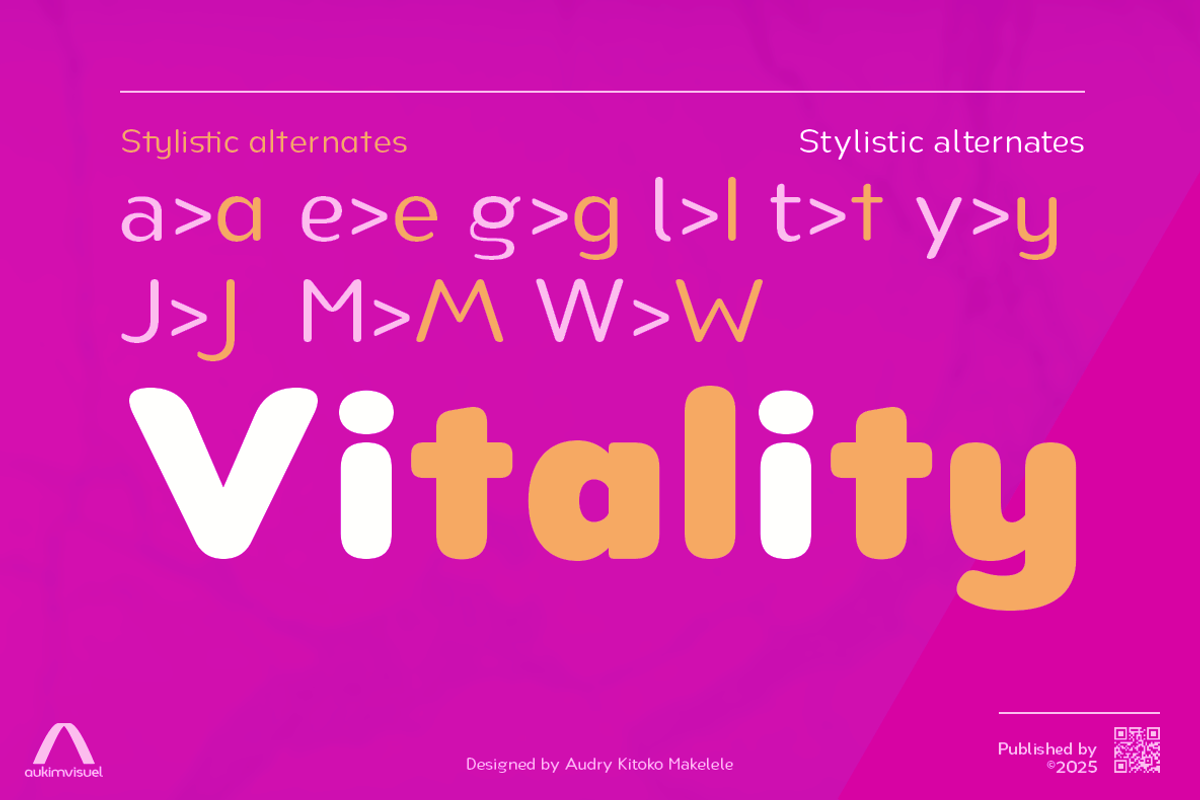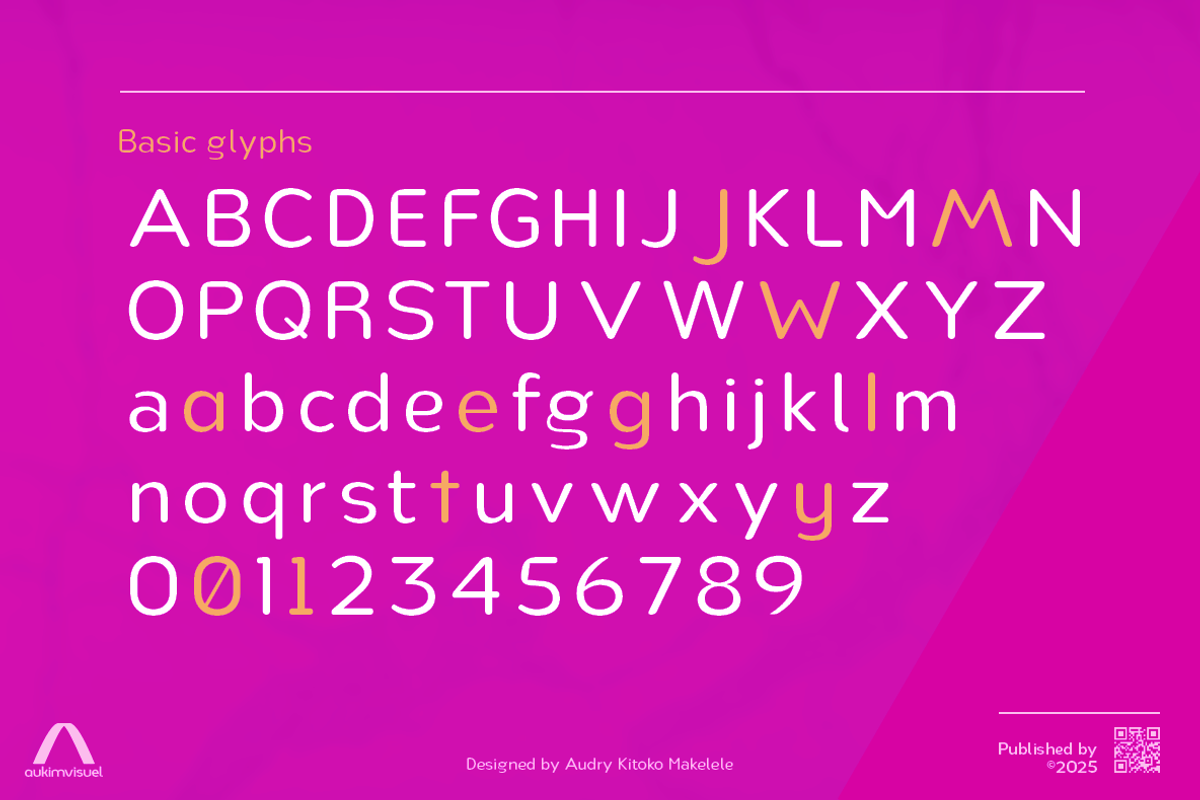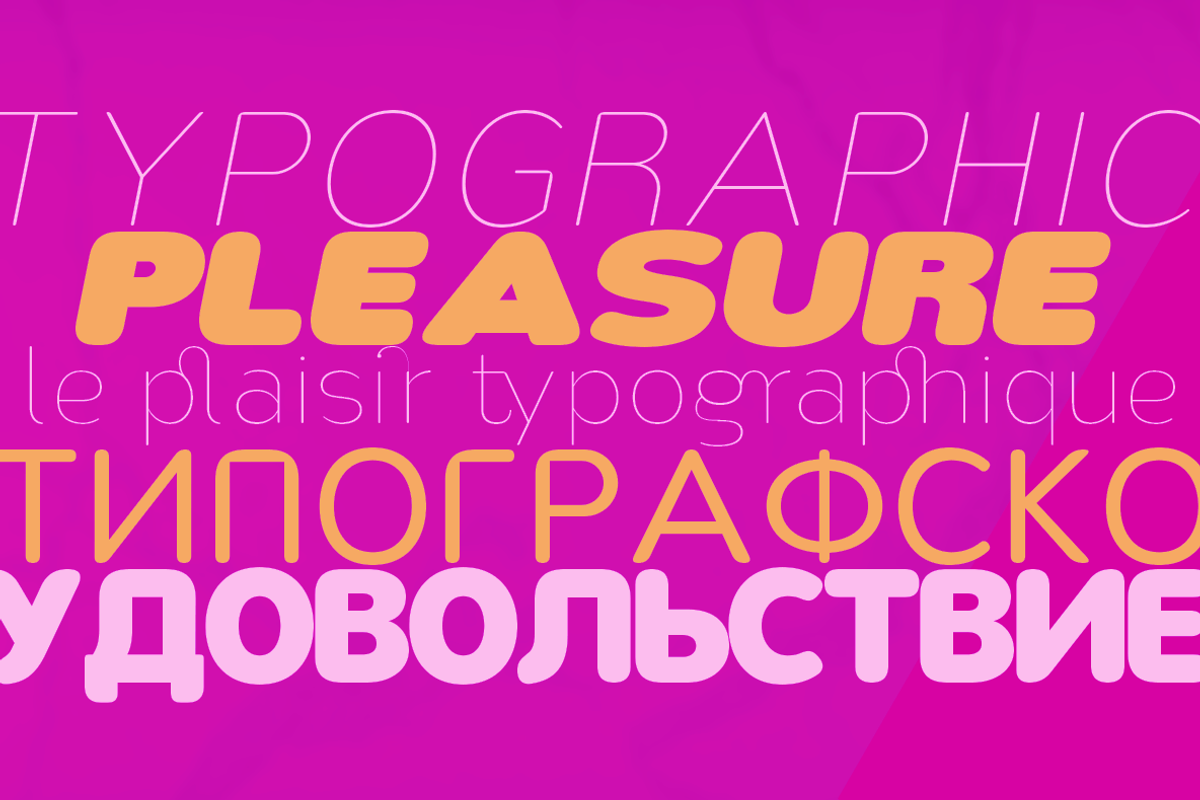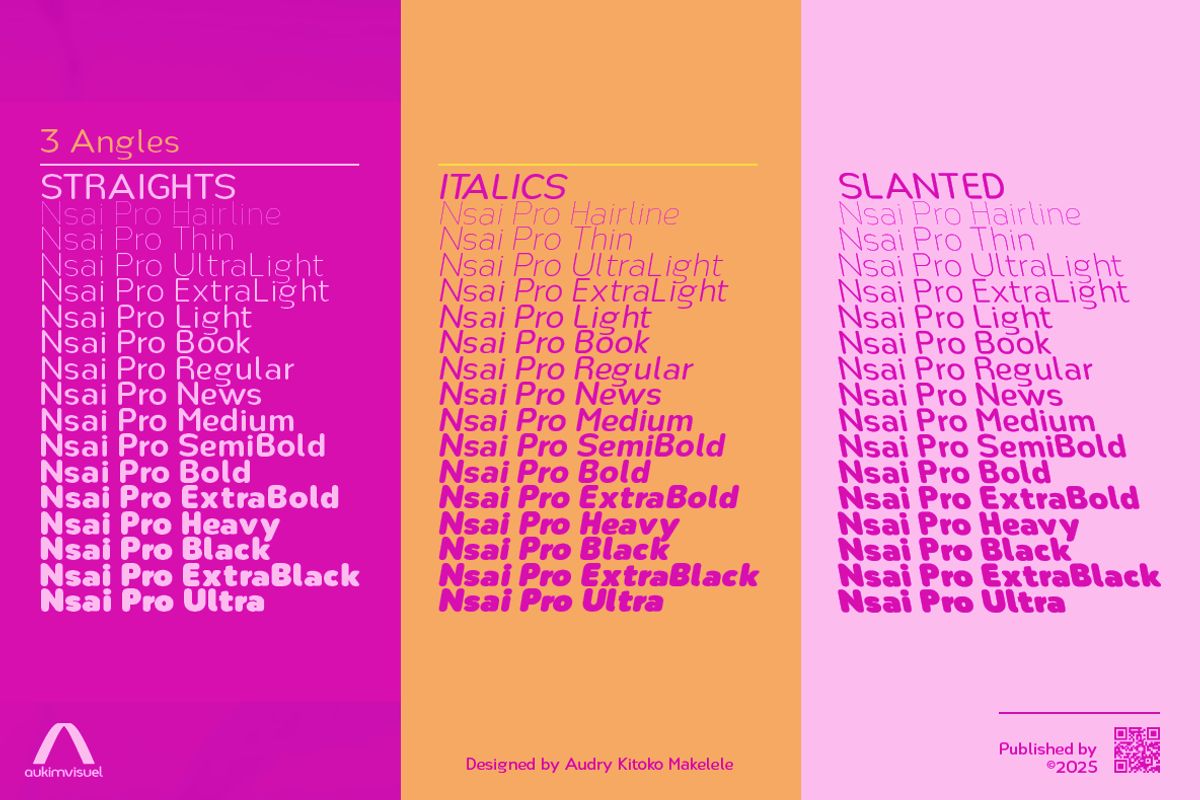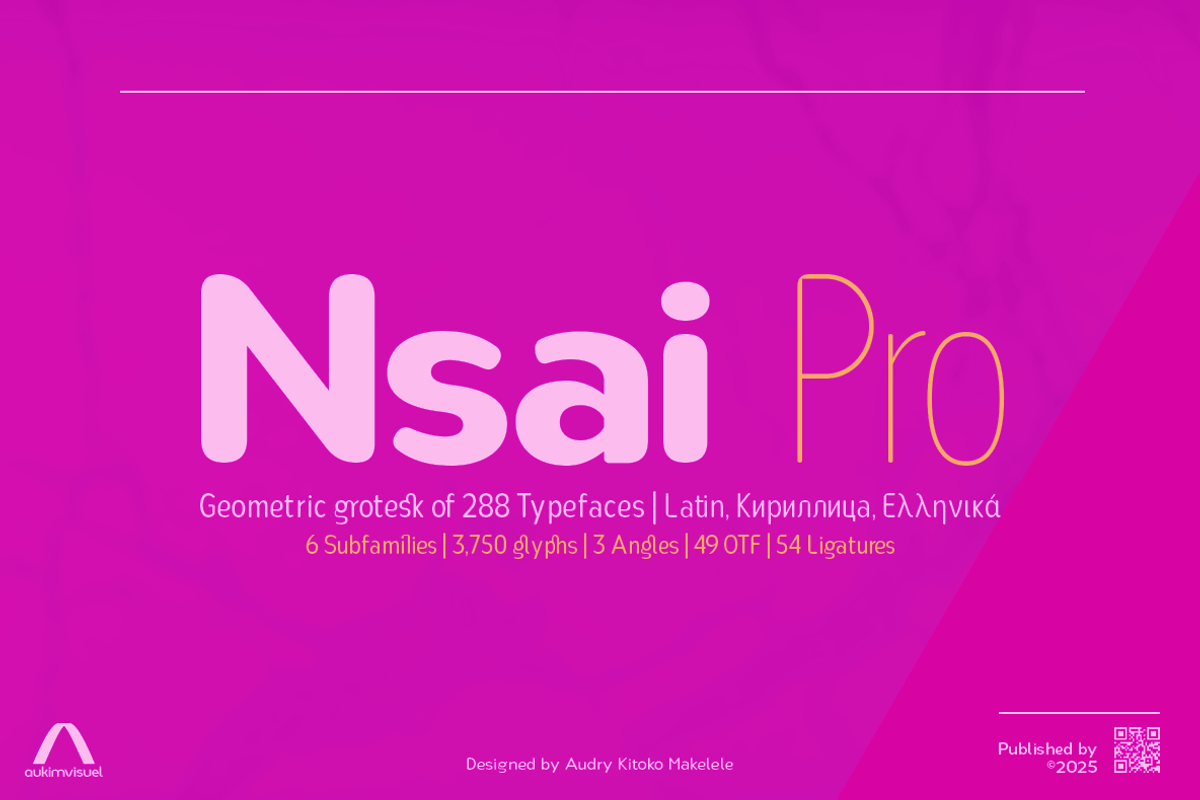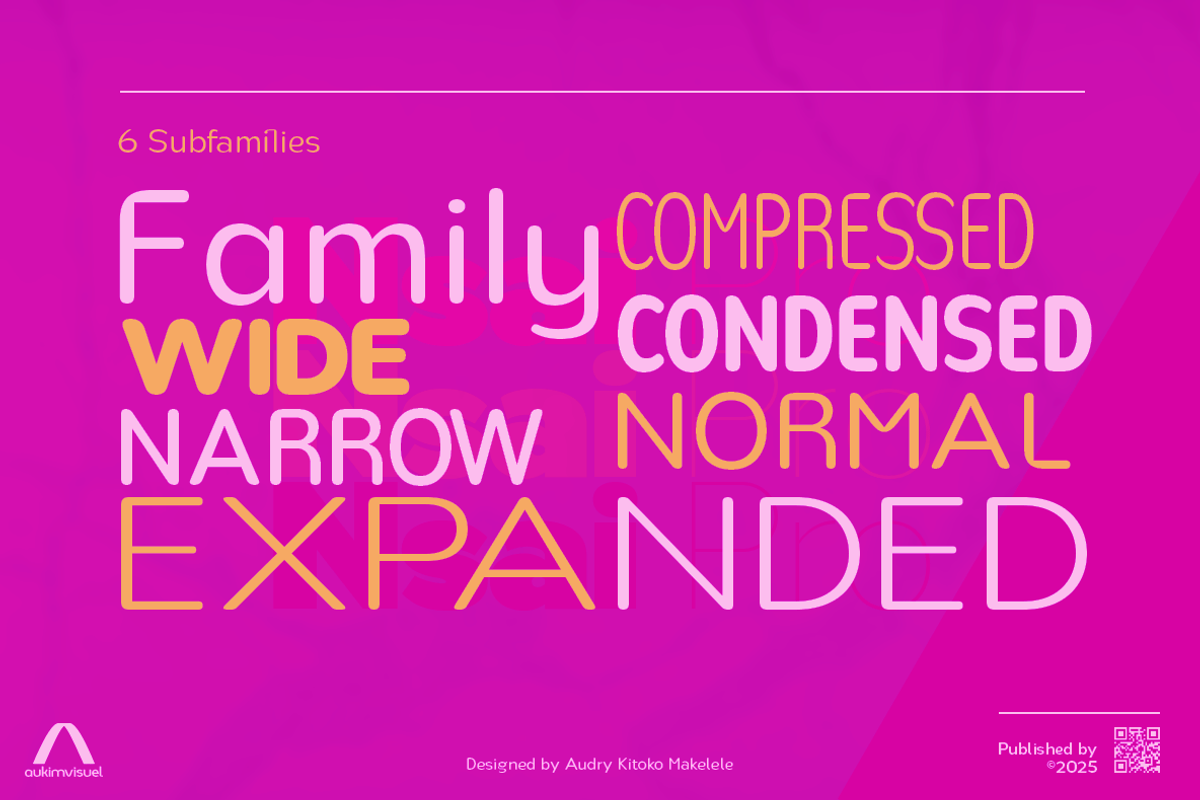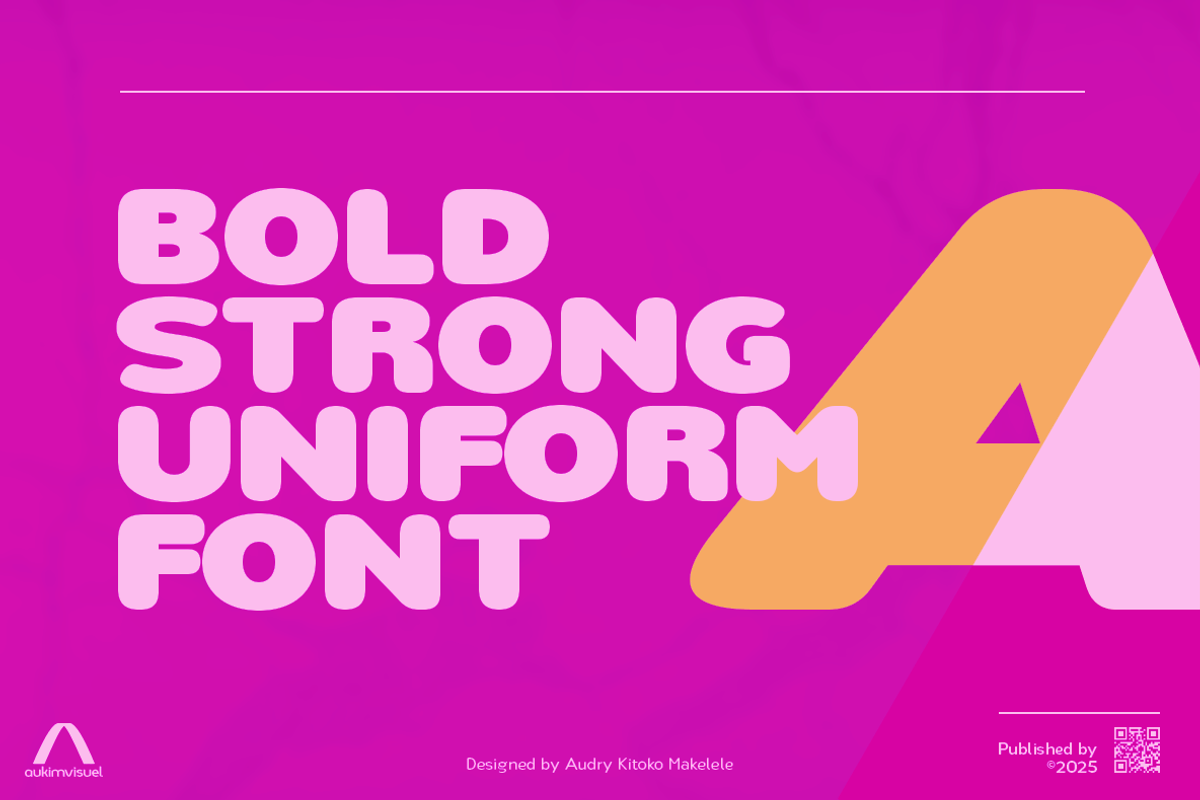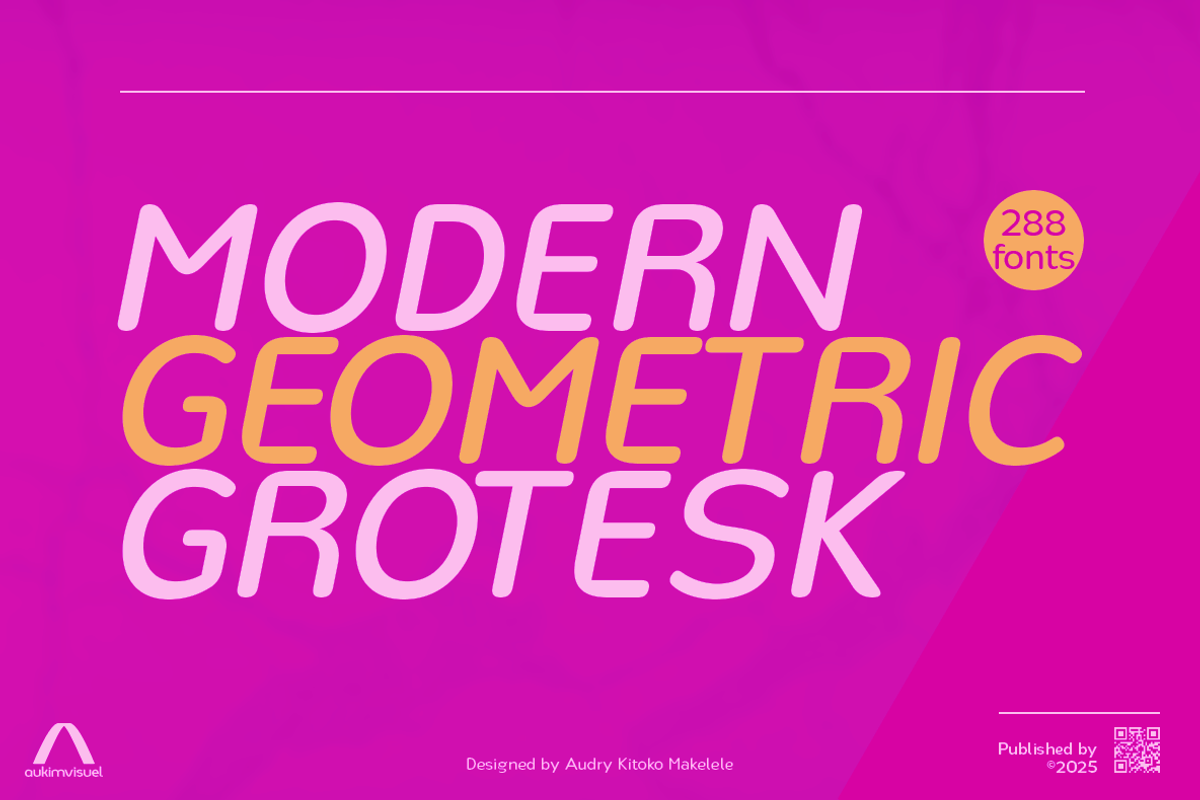
Nsai Pro Rounded Compressed
Nsai Pro Rounded embodies the culmination of an ambitious typographic vision: combining visual elegance, technical performance, and linguistic openness within a single font family. With its rounded terminals, this variation adds a warmer, more accessible touch while retaining the rigor and precision of Nsai Pro. Each curve is softened and each detail is carefully calibrated to ensure both legibility and graphic presence, whether in an editorial, digital, or branding environment.
The richness of Nsai Pro Rounded is first evident in its exceptional linguistic coverage. With over 3,750 glyphs, it offers exceptional typographic coverage: Latin in all its nuances, from the most basic forms to IPA phonetic extensions, Cyrillic and Greek in their contemporary, extended and historical forms, as well as scripts such as N'Ko and Coptic. Added to this are Roman numerals, universal currency symbols, pictograms, and signage symbols, integrated with precision and consistency.
Its OpenType architecture is equally remarkable. No fewer than 49 advanced features enrich the typographic experience: stylistic sets, contextual and discretionary ligatures, small caps, regional variants, fractions, subscripts, superscripts, tabular and proportional figures. In addition, there are 54 subtly designed ligatures, ranging from classic connections to historical forms, to make reading more fluid and offer an expressive palette of rare finesse.
Its structural modularity makes it a highly flexible tool. This family offers six widths (Compressed, Condensed, Narrow, Regular, Wide, and Expanded) to adapt to space constraints or airy compositions. It is complemented by sixteen weights, from Hairline to Ultra, which offer precise control of visual hierarchy and contrast effects, while ensuring perfect consistency between styles.
More than just a simple variant, Nsai Pro Rounded is a true creative tool designed for the most demanding professionals. Its rounded shapes lend a visual warmth that softens the rigor of the structure, making it ideal for visual identities, digital interfaces, multilingual publications, and bold graphic projects. Each word becomes a graphic imprint, each paragraph a visual statement combining rigor, elegance, and friendliness.
In short, Nsai Pro Rounded is much more than just a variant: it is a complete typographic toolbox that allows you to cross languages, eras, and media while infusing a touch of humanity into the technical precision of Nsai Pro.